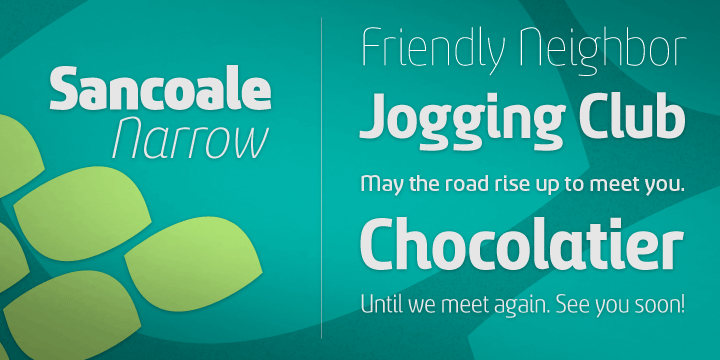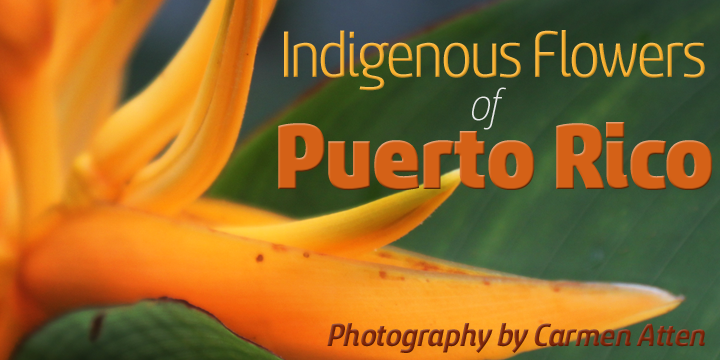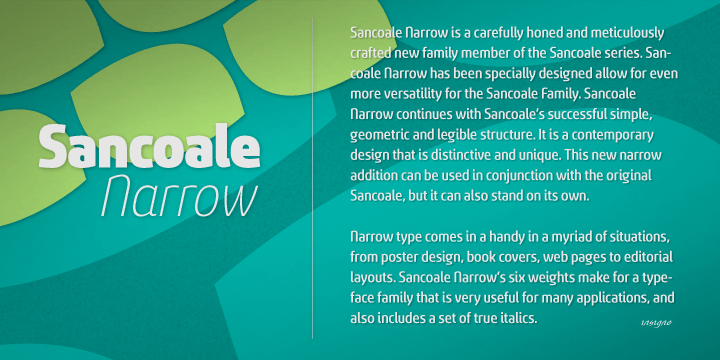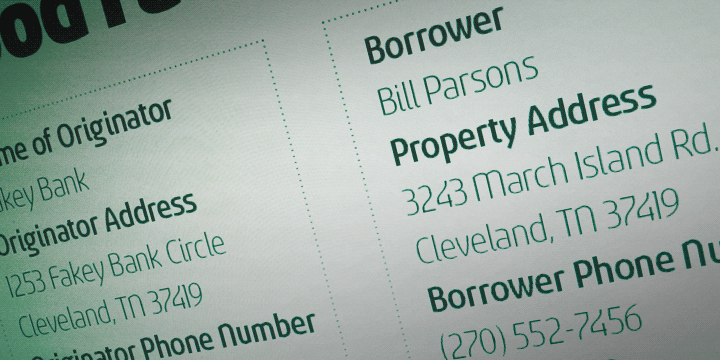
Sancoale Narrow is a sans serif font family. This typeface has twelve styles and was published by Insigne Design.
Sancoale Narrow is a carefully honed and meticulously crafted new family member for the Sancoale series. Sancoale Narrow has been specially designed to allow for even more versatility for the Sancoale Family. Sancoale Narrow continues with Sancoale’s successful simple, geometric and legible structure. It is a contemporary design that is distinctive and unique. This new narrow addition can be used in conjunction with the original Sancoale, but it can also stand on its own.
Narrow type comes in a handy in a myriad of situations, from poster design to book covers, web pages to editorial layouts. Sancoale Narrow’s six weights make for a typeface family that is very useful for many applications, and also includes a set of true italics. The design is simplified without stems or spurs in the default character set. OpenType alternates do include alternates with stems, Small Caps, Fractions, Tabular Figures, and plenty of alts, including “normal” capitals and lowercase letters. Please see the informative .pdf brochure to see these features in action. Sancoale Narrow also includes a full array of Latin diacritics for multilingual support.
OpenType capable applications such as Quark or the Adobe suite can take full advantage of the automatically replacing ligatures and alternates. This family also includes the glyphs to support a wide range of languages.
The Sancoale superfamily is suitable for a wide range of uses and is a very economical and versatile addition to any designer’s font collection.